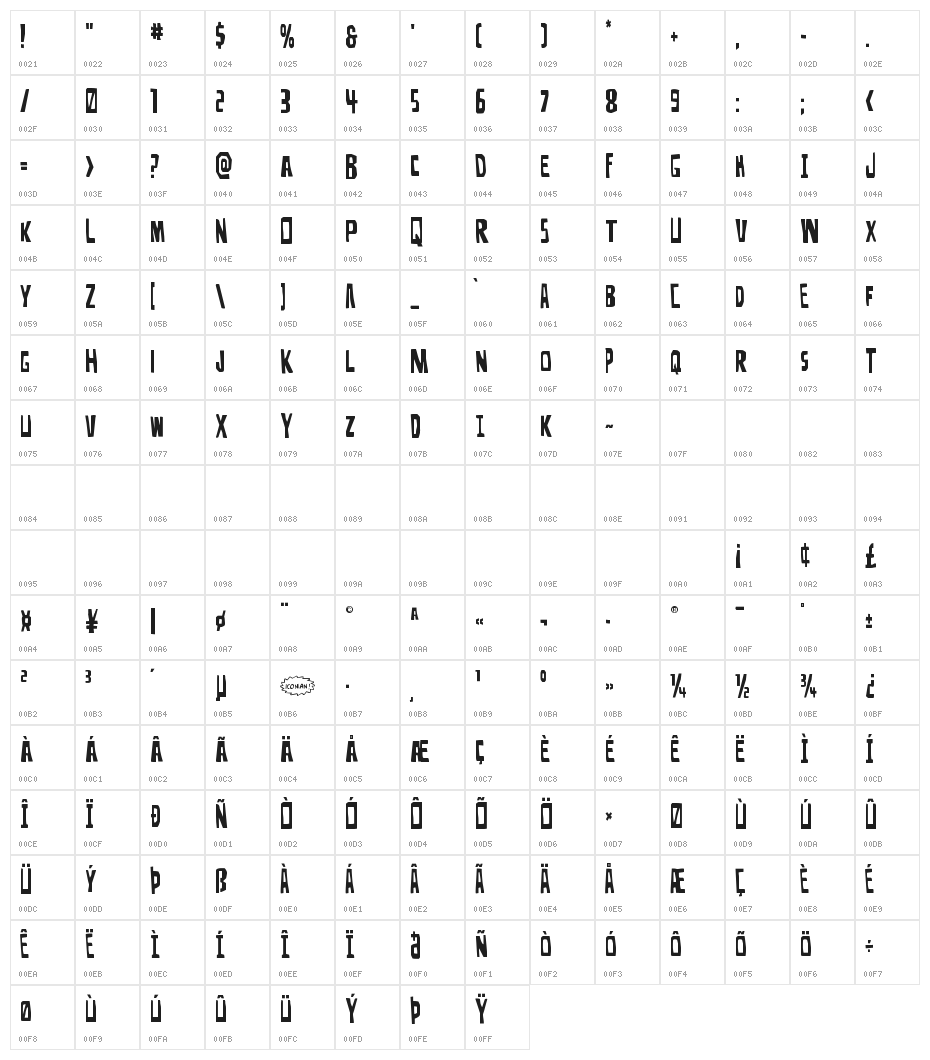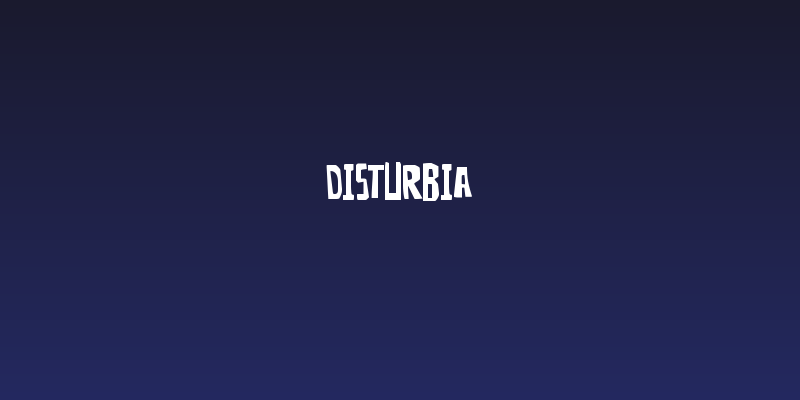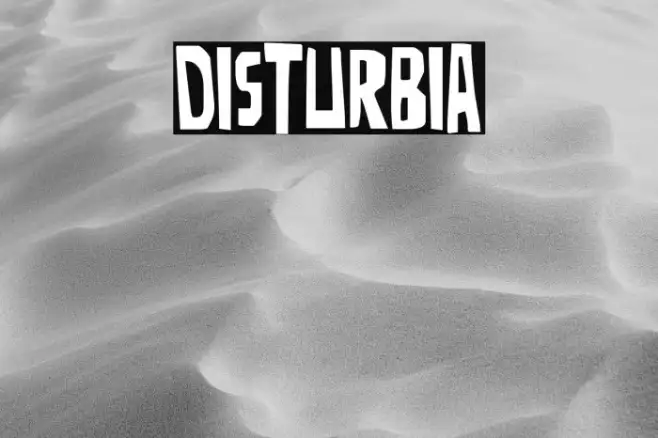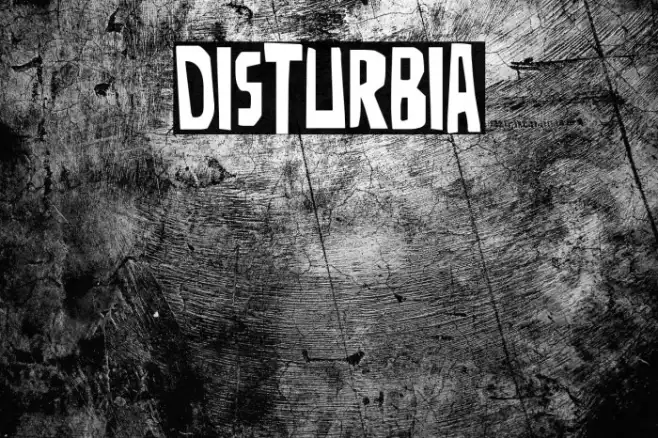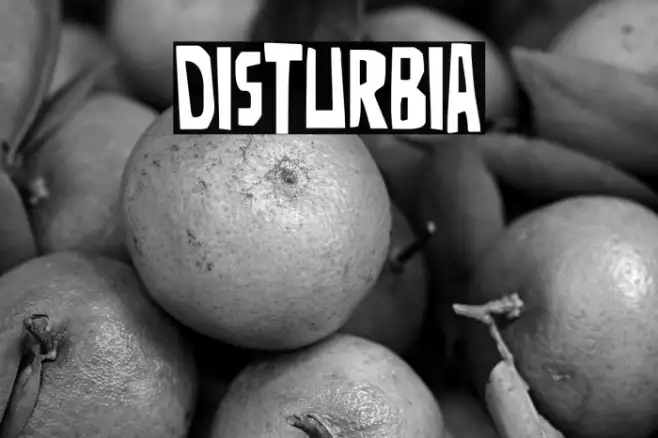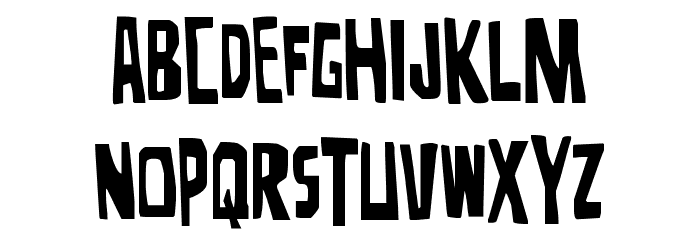
Disturbia Font
Disturbia Description
This font features a bold and irregular design, characterized by its uneven and jagged edges, giving it a distressed and chaotic appearance. The uppercase and lowercase letters share a similar style, with each character exhibiting unique variations that enhance the font's quirky and unpredictable nature. The numerals and special characters maintain this irregularity, contributing to a cohesive yet dynamic look. The overall style is reminiscent of hand-drawn or graffiti-inspired typography, making it stand out with its distinctive and edgy aesthetic.
| Proposed Projects | Ideal for projects requiring a bold statement, such as posters, album covers, or branding for edgy or alternative products. |